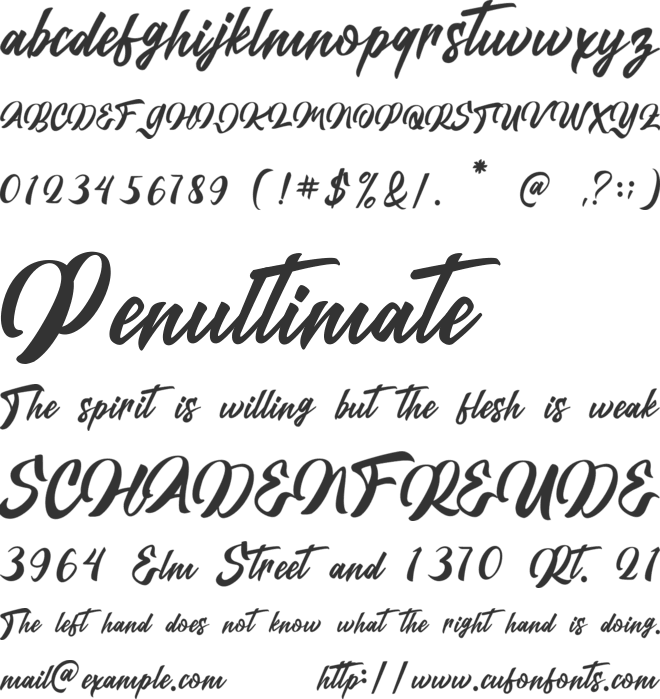
Yattana Udehie Font
This is handwritting bold script font which natural movement and elegant style. This font is perfect for any branding project such as logos, t-shirt printing, creative products, and more. extraordinary in a variety of contexts. This font is PUA encoded which means you can access all of the glyphs and swashes with ease!